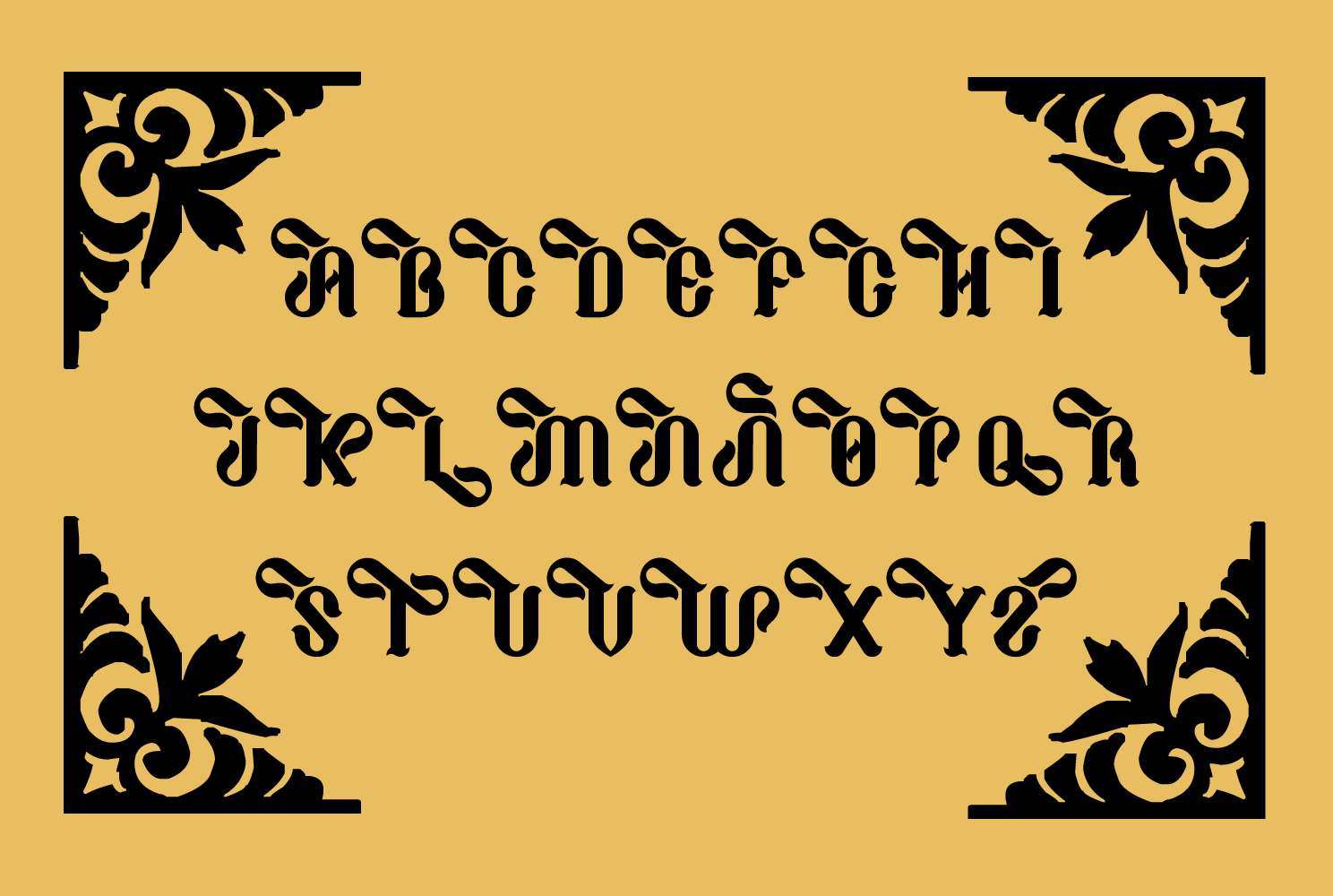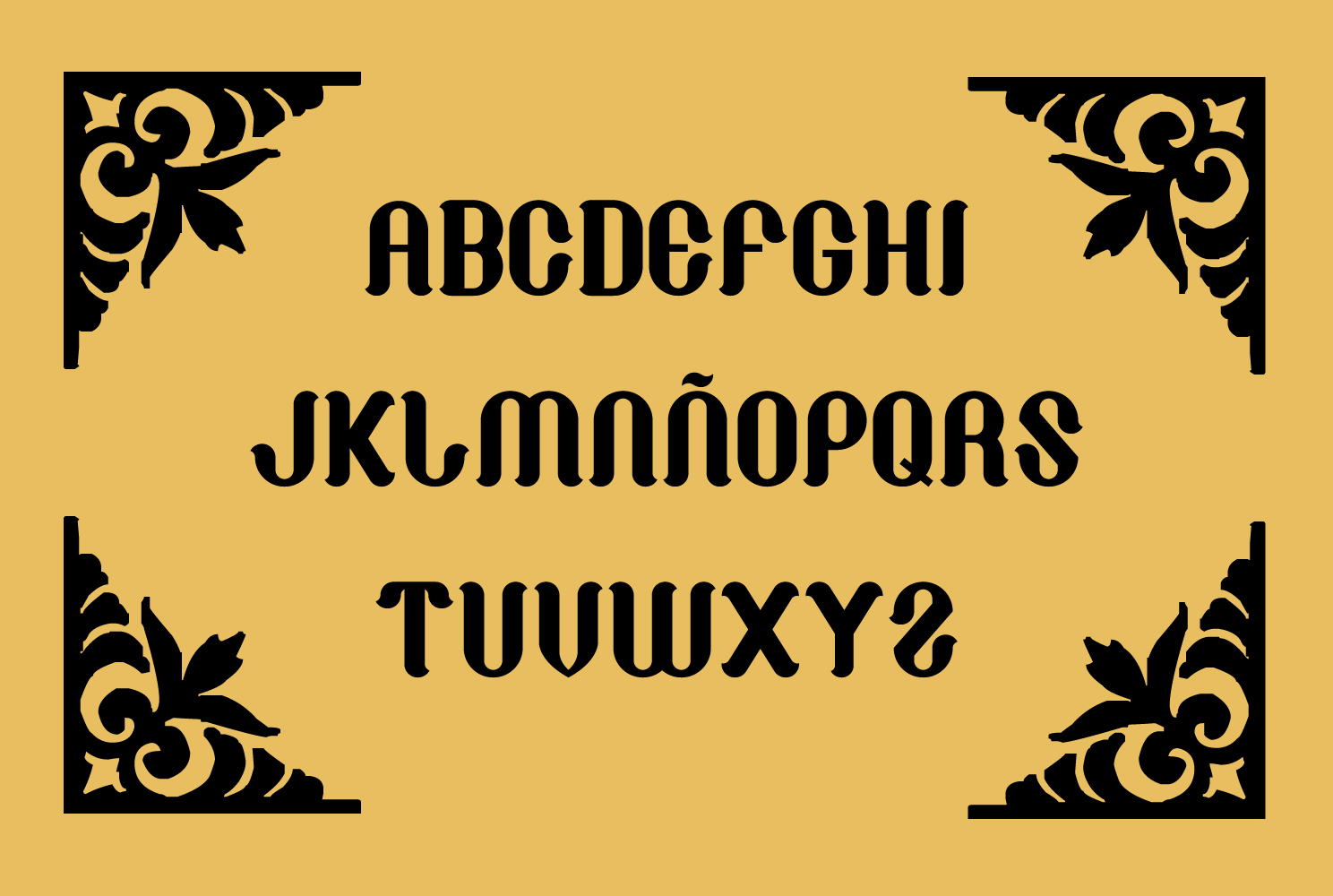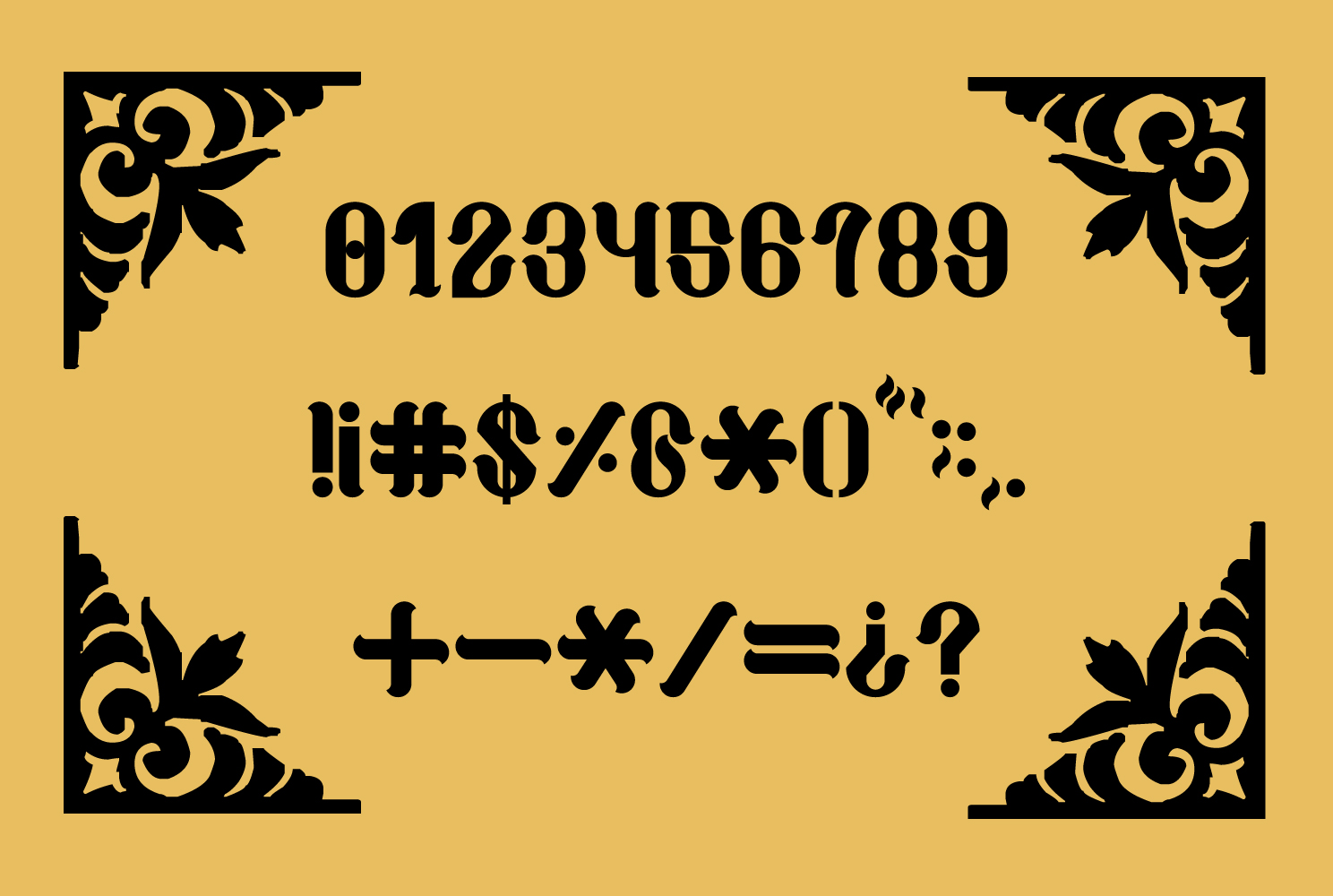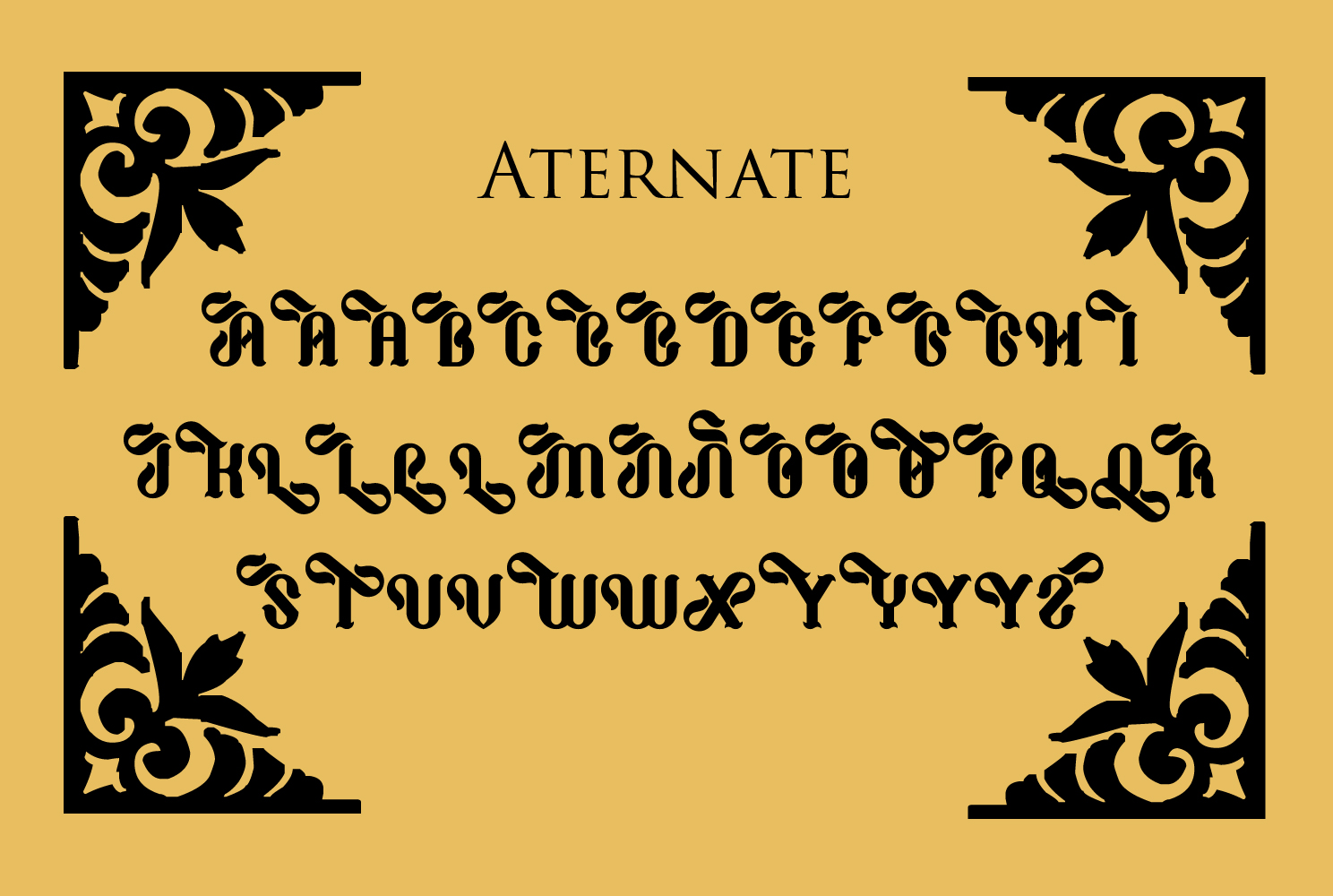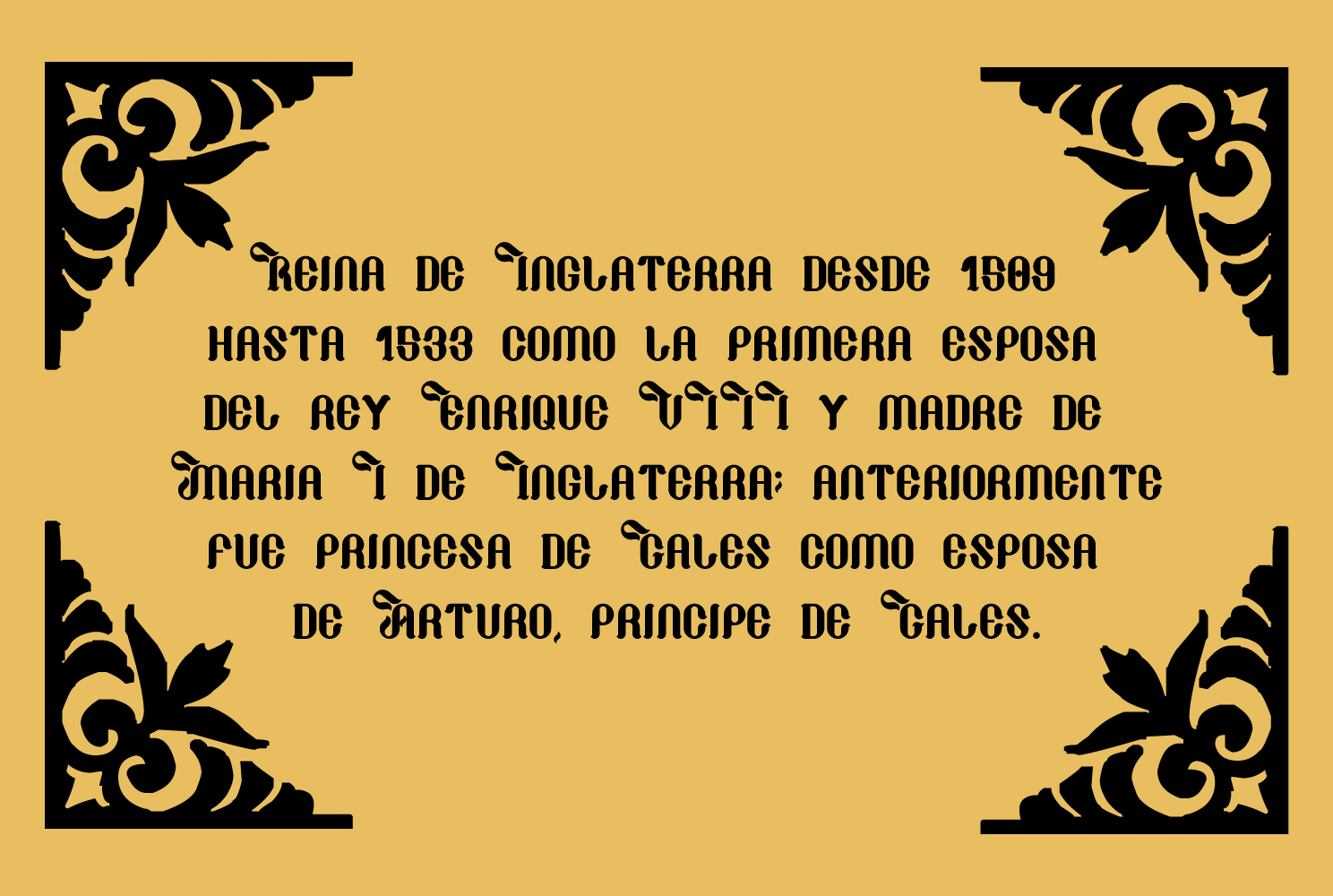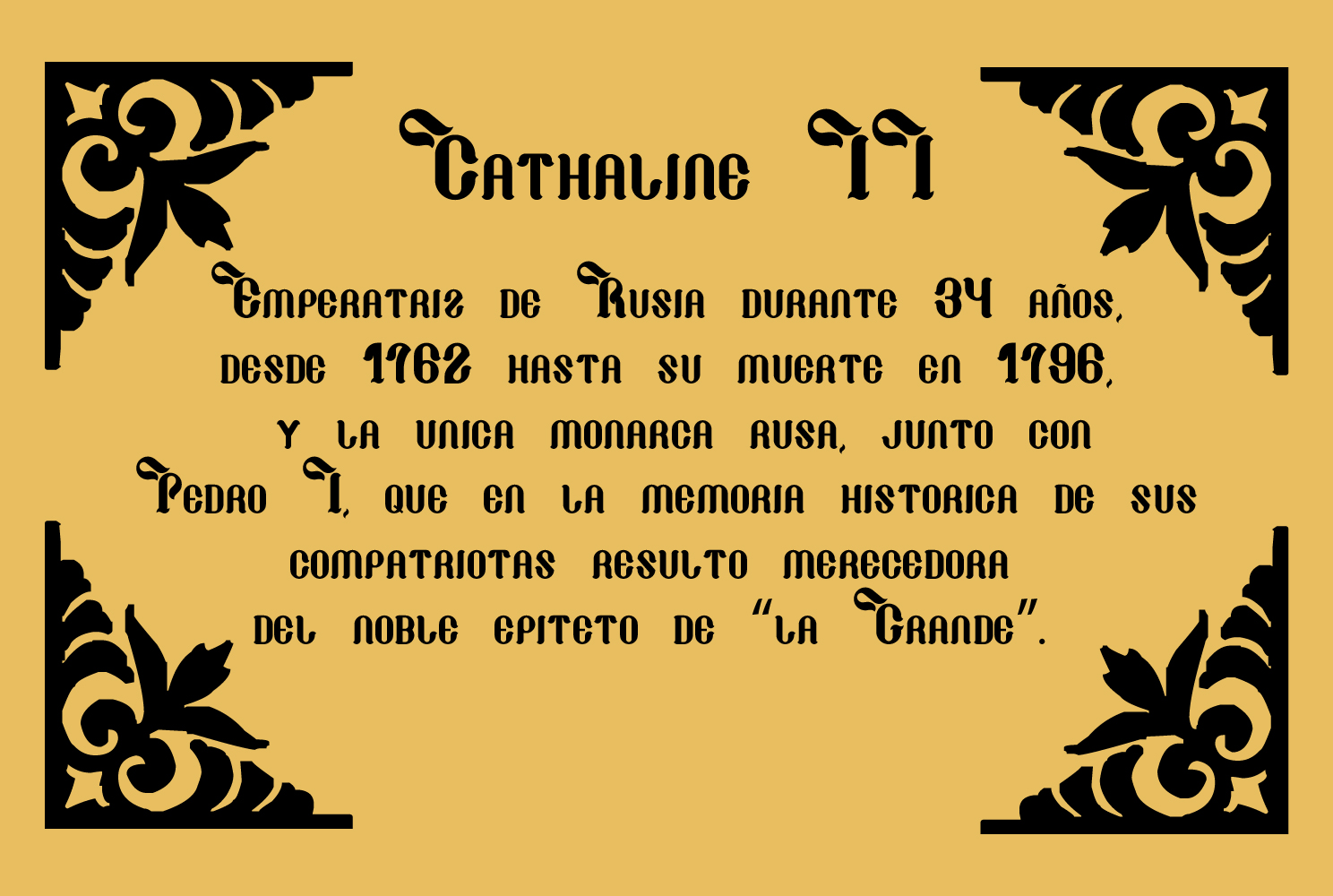
Cathaline Font: A Majestic Blackletter Typeface Inspired by Medieval Elegance
In the realm of typography, few fonts evoke the mystique and grandeur of the medieval era as effectively as the Cathaline Font. This stunning blackletter typeface, inspired by the elegance of Queen Catherine, offers designers and crafters a unique opportunity to infuse their projects with a touch of historical sophistication. Whether you’re working on a branding campaign, crafting invitations, or designing merchandise, Cathaline is poised to elevate your creations with its distinctive, ornate charm.
The Inspiration Behind Cathaline
Cathaline Font draws its inspiration from the medieval period, a time when typography was not just about conveying messages but also about artistry and symbolism. The blackletter style, which originated in Europe during the 12th century, is characterized by its dramatic flourishes and intricate details. This style was often used in illuminated manuscripts and royal decrees, signifying power, prestige, and a deep connection to the literary and cultural heritage of the era.
Queen Catherine, from whom the font derives its name, likely refers to one of the several queens throughout history who bore this name, such as Catherine of Valois or Catherine of Aragon. These women were known for their influence on culture, politics, and the arts, making them fitting muses for a font that seeks to capture the essence of medieval typography.
Design Characteristics of Cathaline Font
Cathaline Font is a gorgeous example of a modern blackletter typeface, designed with both aesthetics and versatility in mind. Its design characteristics include:
- Intricate Flourishes: True to its medieval roots, Cathaline features elaborate flourishes that add a level of sophistication and elegance to any text.
- Classic Blackletter Style: The font maintains the dramatic strokes and sharp contrast between thick and thin lines that are hallmarks of the blackletter style.
- Legibility: Despite its ornate nature, Cathaline is surprisingly legible, making it suitable for both headlines and longer texts.
- Versatility: It pairs well with a wide range of fonts, from sans serif and serif fonts to other script and decorative types, allowing designers to create visually appealing contrasts.
Uses of Cathaline Font
The versatility of Cathaline Font makes it an excellent choice for a multitude of design projects. Here are some ideas:
- Branding and Logos: Add a touch of medieval elegance to your brand identity with a logo that stands out.
- Wedding Invitations and Stationery: Create bespoke wedding invitations, menus, and stationery that exude luxury and romance.
- Merchandise: From t-shirts to tote bags, Cathaline can help your merchandise designs look unique and captivating.
- Packaging: Use Cathaline to add an element of history and charm to product packaging, especially for brands related to literature, history, or gourmet goods.
- Digital Content: Enhance your website headers, social media graphics, and email newsletters with a font that commands attention.
Tips for Using Cathaline Effectively
To maximize the impact of Cathaline Font in your designs:
- Mix and Match: Combine Cathaline with complementary fonts to create visual interest.
- Consider Size: Use Cathaline in larger sizes to showcase its intricate details, especially for headlines.
- Pay Attention to Color: Black or metallic colors can enhance the medieval feel, but don’t be afraid to experiment with other colors to match your brand or design theme.
In conclusion, Cathaline Font offers designers and crafters a unique and powerful tool to bring a touch of medieval elegance to their projects. With its beautiful design, versatility, and the ability to evoke a sense of history and luxury, Cathaline is sure to become a favorite in any designer’s toolkit.